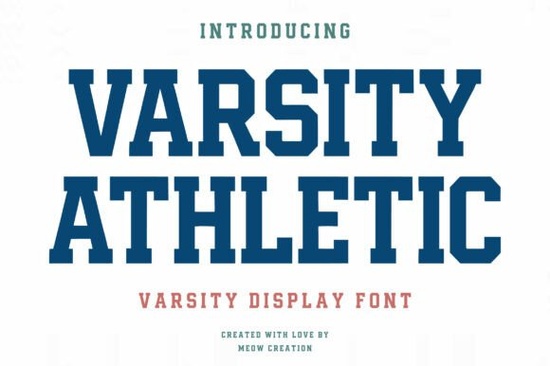
If you're looking for a bold, clean, and instantly recognizable font that captures the spirit of team pride and school tradition, the Varsity Athletic Font fits naturally into projects where strength and clarity matter most. It’s not just another slab serif it’s designed with the weight, spacing, and structure of classic sports lettering, making it especially useful for t-shirt designs, school spirit gear, gym branding, and small-batch merchandise.
What kind of designs work best with Varsity Athletic?
This font shines in contexts where legibility and impact come first like screen-printed tees, vinyl decals, or event posters. Its uppercase-only design keeps things focused and strong, while the generous x-height and sturdy serifs ensure it holds up well even at smaller sizes or on textured fabrics. Because it includes full multilingual support (including Latin Extended-A), it’s also practical for bilingual schools, community centers, or international teams who want consistent branding without switching fonts.
You’ll find it especially helpful if you regularly create designs for local sports leagues, youth camps, alumni groups, or campus clubs. Unlike script or decorative fonts that fade into the background, Varsity Athletic stands out without needing extra effects no outlines, shadows, or gradients required.
How does it compare to other slab serif fonts?
Many slab serifs lean either too industrial (like Rockwell) or too playful (like Courier New). Varsity Athletic sits comfortably in the middle: structured but approachable, athletic but professional. It avoids exaggerated contrast or quirky quirks which means it pairs easily with simple sans-serifs like Montserrat or Open Sans for balanced layouts.
It’s also optimized for real-world use: the spacing between letters is open enough to prevent ink bleed on fabric, and the character set includes standard punctuation, numerals, and accented characters used across Spanish, French, German, and Polish helpful if you’re designing for broader audiences or selling on global print-on-demand platforms.
Where do designers actually use this font?
- T-shirts and hoodies: Especially for school spirit lines, intramural teams, or fitness challenges the blocky shapes hold up well in basic screen printing and DTG.
- Team logos and banners: Works as a primary wordmark or paired with a simple icon (like a shield or star) for instant recognition.
- Classroom and gym signage: Teachers and coaches use it for motivational posters, schedule boards, or award certificates it reads clearly from across a room.
- Digital assets: Social media graphics, Canva templates, or email headers benefit from its confident presence without overwhelming layout space.
Unlike some display fonts that sacrifice usability for style, Varsity Athletic was built to be practical first. That means fewer kerning adjustments, fewer missing glyphs, and less time troubleshooting when exporting to PDF or SVG. If you’ve ever spent 20 minutes trying to get an accent mark to render correctly in Cricut Design Space or Silhouette Studio, you’ll appreciate how smoothly this one behaves.
For crafters who rely on layered vinyl or heat transfer, the clean edges and consistent stroke width help reduce weeding time and improve cut accuracy. Small business owners running Etsy shops or local apparel brands often tell us they reuse this font across multiple product types from mugs to tote bags because customers recognize the style as “authentic” and “team-ready.”
If you’d like to explore similar options, you might also consider checking out Varsity Athletic Font alongside other slab serif fonts on Creative Fabrica many users mix it with minimalist sans-serifs or handwritten accents for contrast.
- ✅ Confirm your project needs uppercase-only impact (it doesn’t include lowercase letters).
- ✅ Check whether your software supports OpenType features if you plan to use alternates.
- ✅ Test it at 36–48 pt on your intended output (e.g., fabric, vinyl, or poster paper) to confirm readability.
Try pairing it with neutral backgrounds, high-contrast colors (navy + gold, black + white, forest green + cream), or subtle textures like linen or kraft paper for added depth. You don’t need fancy tools or advanced skills just clear intent and a font that does the heavy lifting for you.